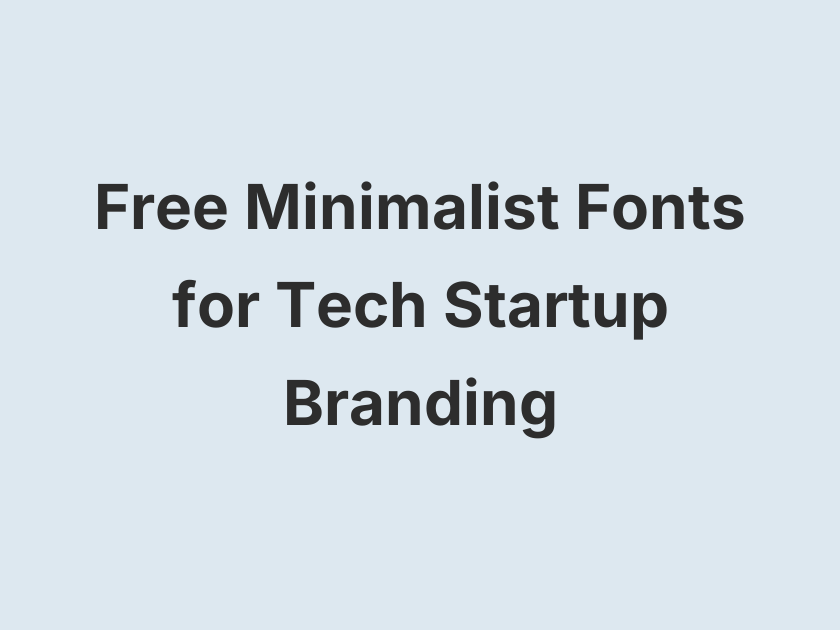
62 Best Free Minimalist Fonts for Tech Startup Branding
Minimalist branding has become the default visual language of tech startups, and the typeface carrying that message matters as much as the logo mark itself. A clean geometric or grotesque sans communicates precision and confidence, while a well-chosen monospace accent signals technical credibility for developer tools and SaaS products. Every option below is free on Google Fonts, so you can build a full brand system, from wordmark to product UI to pitch deck, without licensing a single paid typeface.
1. Inter
Ship faster with a cleaner design system
Inter is the closest thing the software world has to a default typeface, built from the ground up for screens rather than adapted from print. It disappears into interfaces at nine pixels and still holds character at eighty, which is why so many product teams, from Figma to countless Y Combinator startups, reach for it first. Pair it with a distinctive display face for your logo if you want your brand to stand apart from the crowd using it.
2. Space Grotesk
Build the platform developers actually trust
There is a faint monospace DNA in Space Grotesk’s proportions that gives it a coded, engineered feel without sacrificing warmth. It reads confidently at logotype size, which makes it a favorite for dev-tool and infrastructure brands.
3. Manrope
Onboard your team in under a minute
Manrope’s slightly narrow, geometric letterforms feel deliberate and current, occupying a sweet spot between Inter’s neutrality and something with a bit more design opinion. It handles both dense UI copy and oversized hero text without needing a second family.
4. Sora
Launch your API in a single sprint
Sora’s rounded terminals soften an otherwise geometric skeleton, giving startup headlines a friendly edge instead of a cold, corporate one. It works especially well on marketing pages where you want approachability alongside precision.
5. Poppins
Scale your idea into a real company
Built on true geometric circles, Poppins gives wordmarks a bold, confident stamp. It has become extremely common across startup landing pages, so treat it as a safe, versatile choice rather than a distinctive one.
6. Montserrat
Founded by builders, backed by believers
Montserrat borrows its structure from Buenos Aires street signage and carries that same clear, civic legibility into digital branding. Its geometric caps make a strong logotype, though its ubiquity means it rarely feels exclusive.
7. Work Sans
Optimized for growth, engineered for scale
Designed specifically to stay crisp on screens at working sizes, Work Sans earns its name as a dependable body-copy workhorse for dashboards, docs, and marketing sites alike.
8. DM Sans
Every metric, tracked in real time
Low contrast and even spacing make DM Sans quietly effective in dense data displays and settings panels where clarity matters more than personality.
9. Outfit
Design the future of your industry
Outfit’s uniform strokes and tight geometry make it a natural fit for wordmarks and app icons where a single word needs to carry the whole brand.
10. Plus Jakarta Sans
Connecting founders with the right investors
There is a subtle warmth in Plus Jakarta Sans that keeps its geometric bones from feeling sterile, making it a good match for startups that want minimalism without coldness.
11. Urbanist
Raise your seed round with confidence
Thin, airy, and unapologetically geometric, Urbanist shines in hero sections and pitch decks but can thin out and lose punch at very small body sizes.
12. Figtree
Simple tools for complicated problems
Figtree’s rounded corners and generous spacing give it a consumer-friendly softness, a good pick for startups building approachable apps rather than enterprise software.
13. Lexend
Accessible design for every single user
Lexend
Lexend was engineered around reading research to improve proficiency and speed, a genuinely useful story for startups that market accessibility or education products. Its variable weight axis also keeps file sizes lean.
14. Red Hat Display
Open source infrastructure, built to last
Red Hat Display
Originally commissioned for a major enterprise tech brand, Red Hat Display carries an engineered, no-nonsense character suited to developer platforms and B2B software.
15. Epilogue
From prototype to production in weeks
Epilogue offers an unusually wide weight range for a grotesque, letting one family carry everything from fine print to billboard-scale headlines.
16. Hanken Grotesk
Streamlined operations for growing teams
There is a restrained, Nordic neutrality to Hanken Grotesk that suits startups aiming for a calm, understated visual identity rather than a loud one.
17. Chivo
10x growth, verified by real data
Chivo’s bold weights are built for numbers, making it a strong choice for stat callouts, pricing tables, and dashboard headlines.
Variable fonts such as Inter, Roboto Flex, and Lexend are worth prioritizing for product interfaces, since a single file can cover every weight your design system needs without extra page load.
Test your chosen family at the sizes that matter most to your product, tiny UI labels and dense tables, before committing it to a full brand guide.
Any of these families will give a startup brand the clarity and restraint that minimalist design demands, and because they are all free on Google Fonts, testing a handful side by side in a live prototype costs nothing but time.